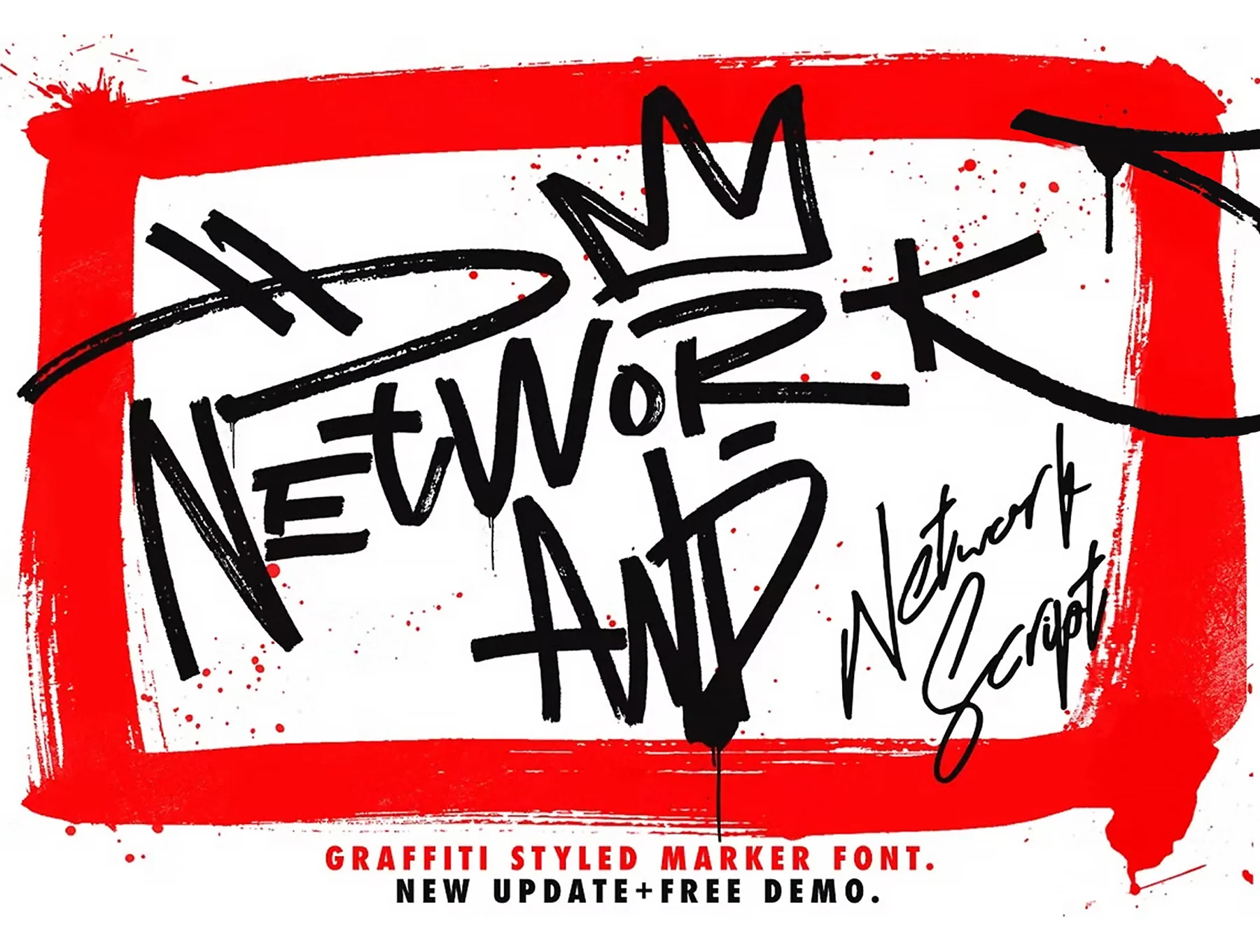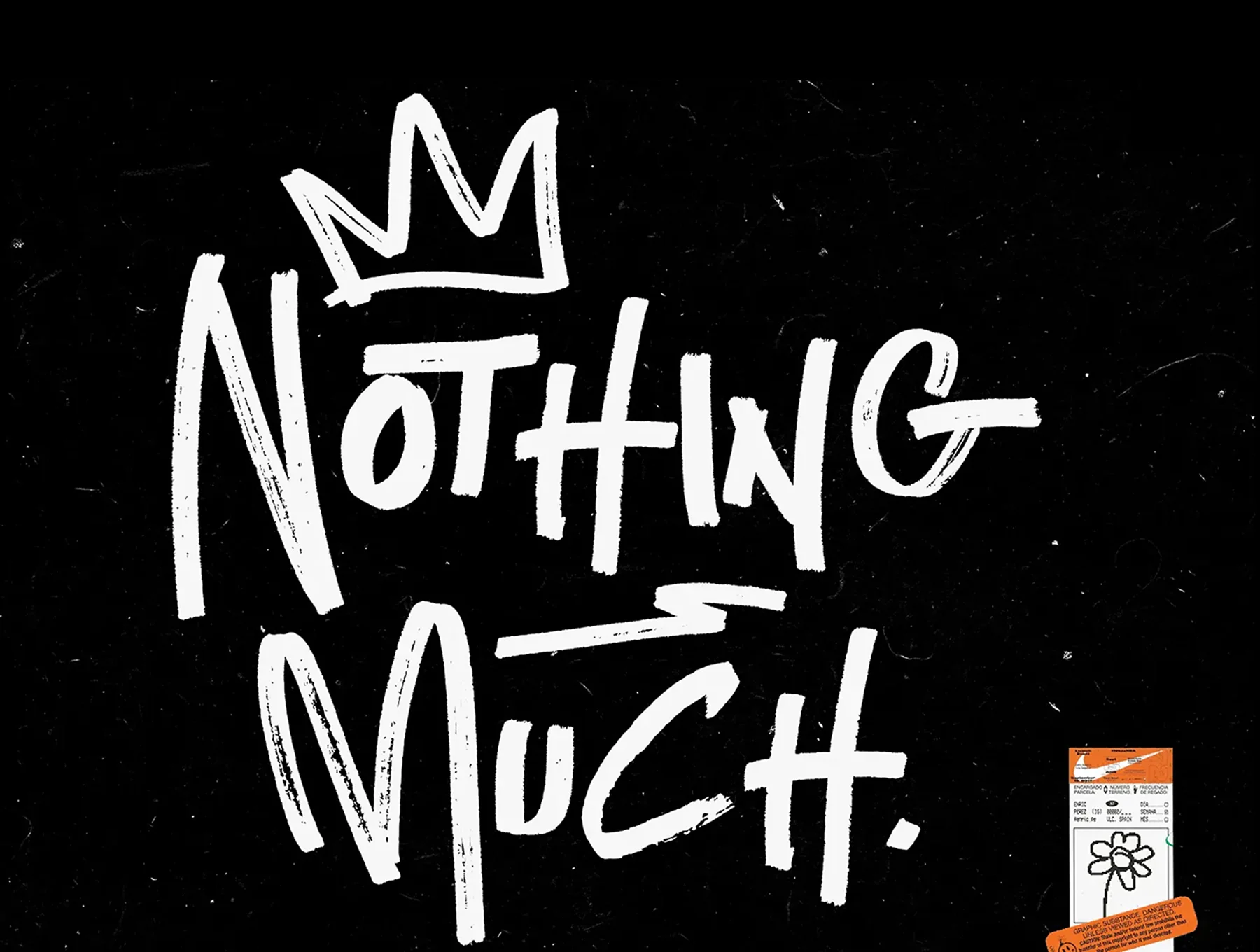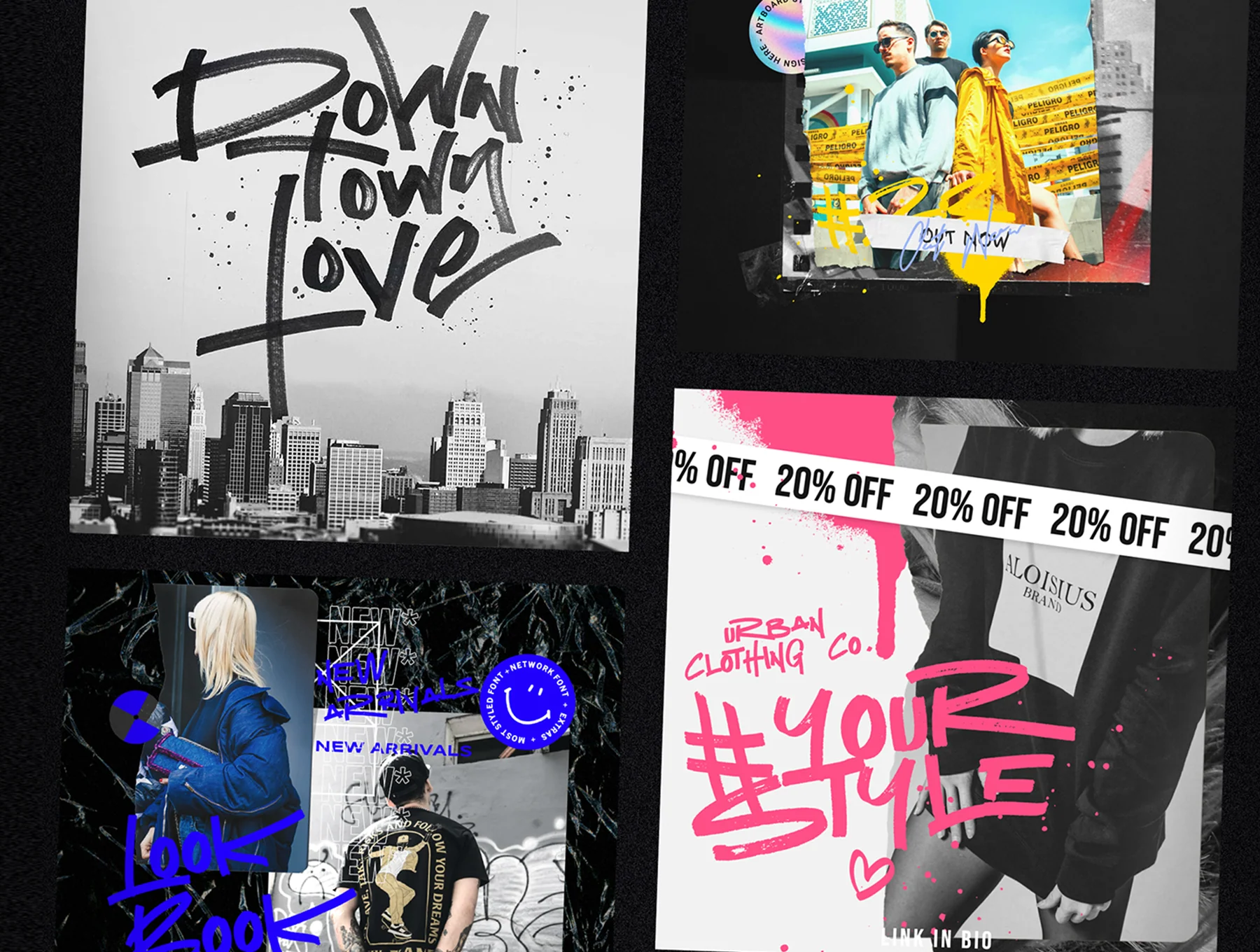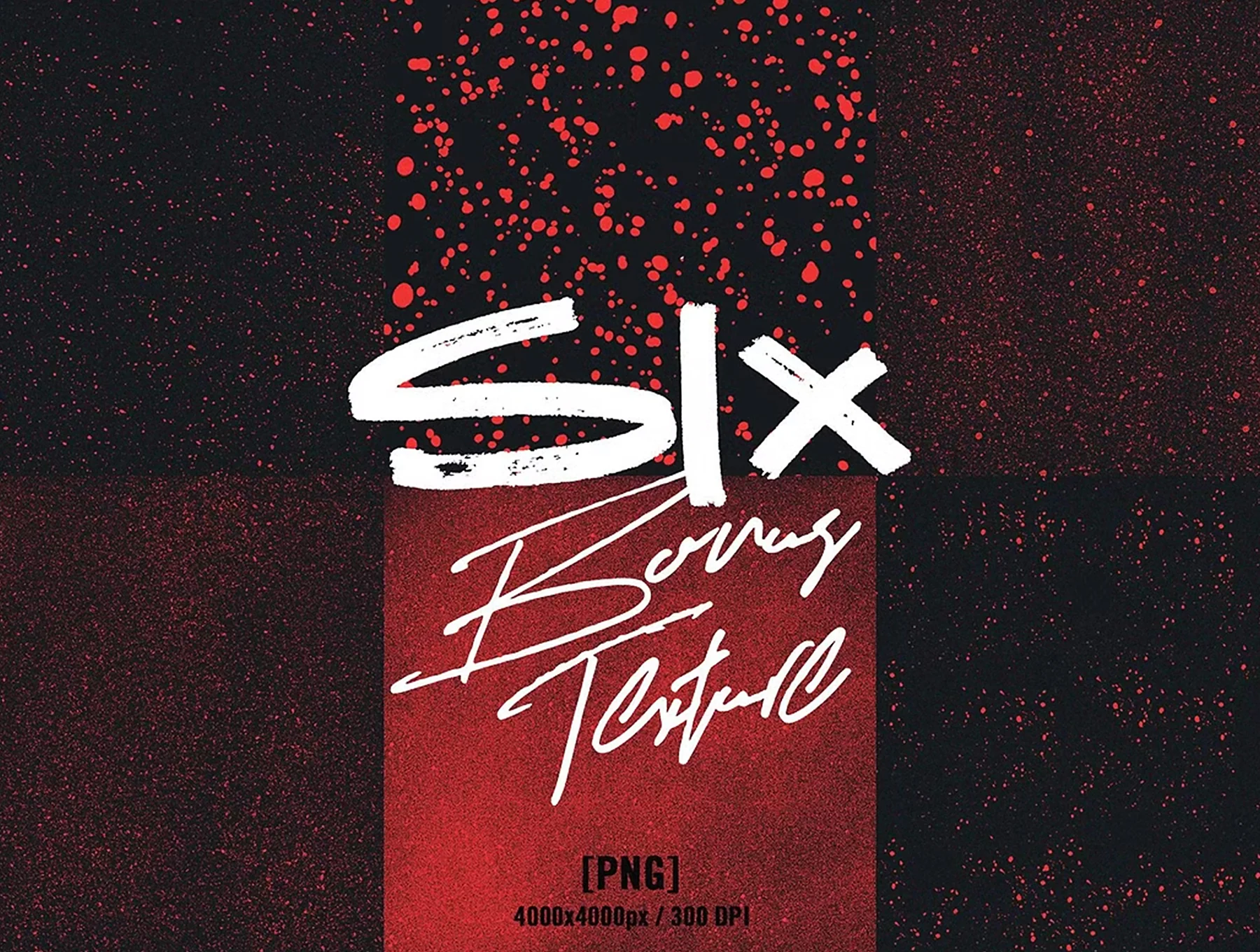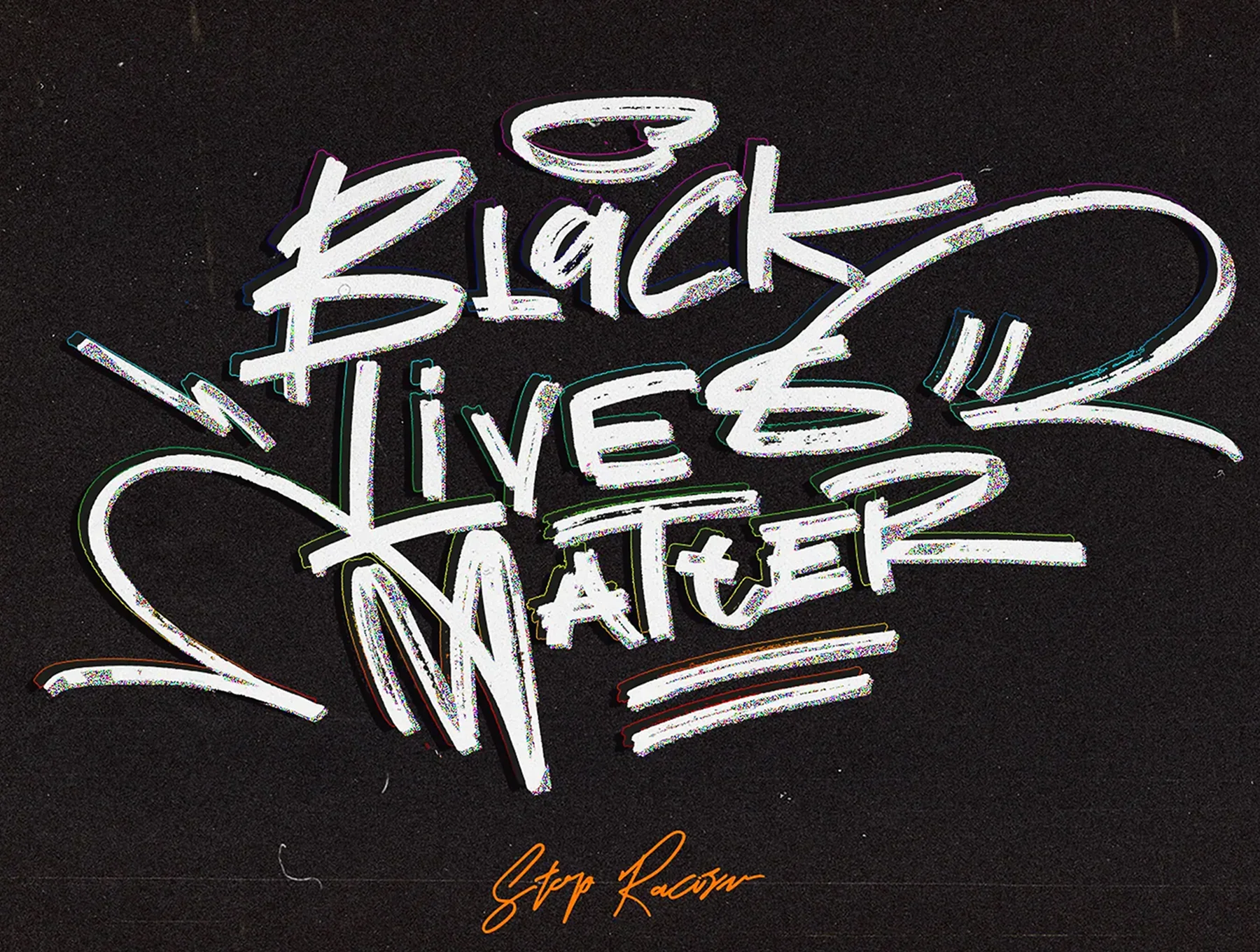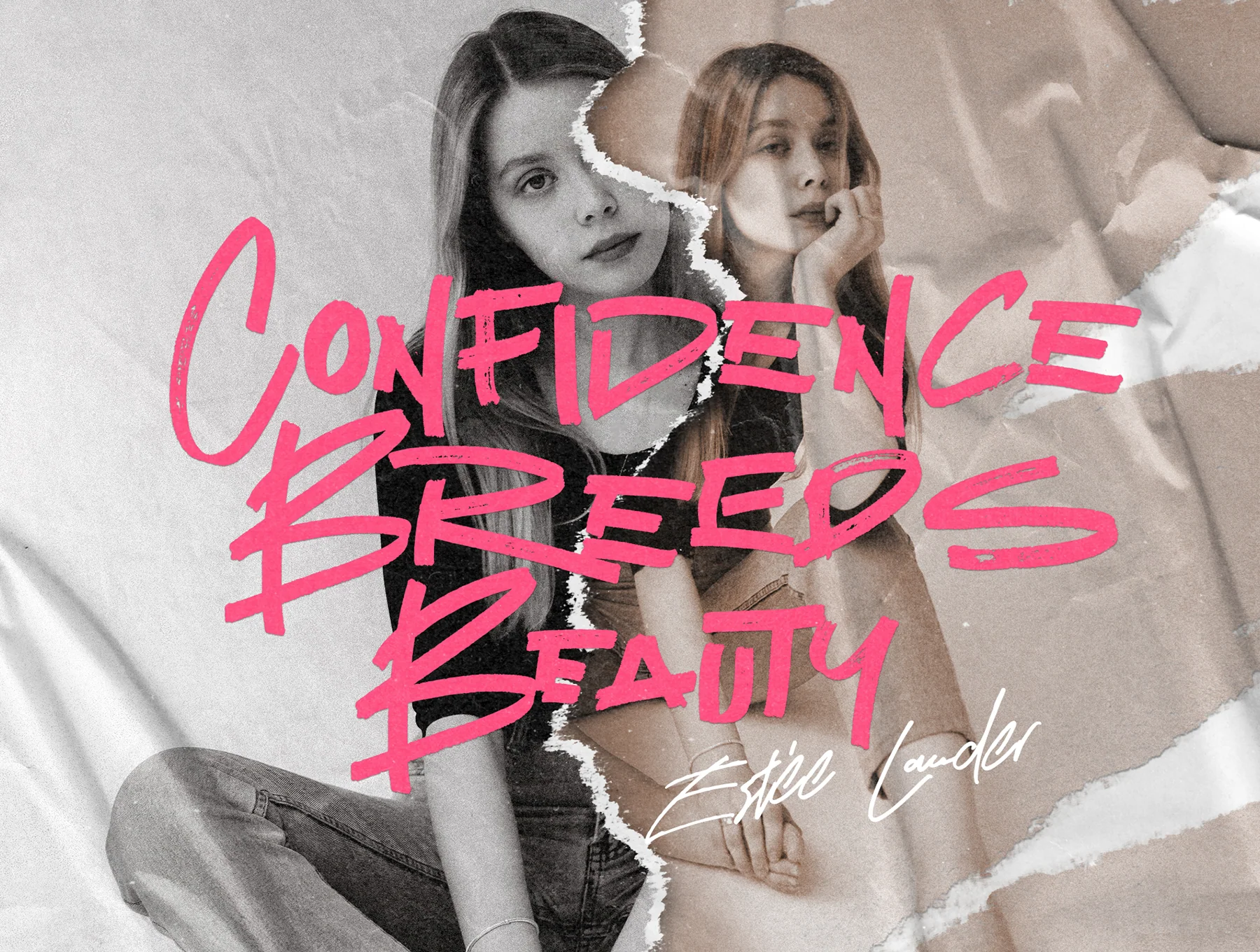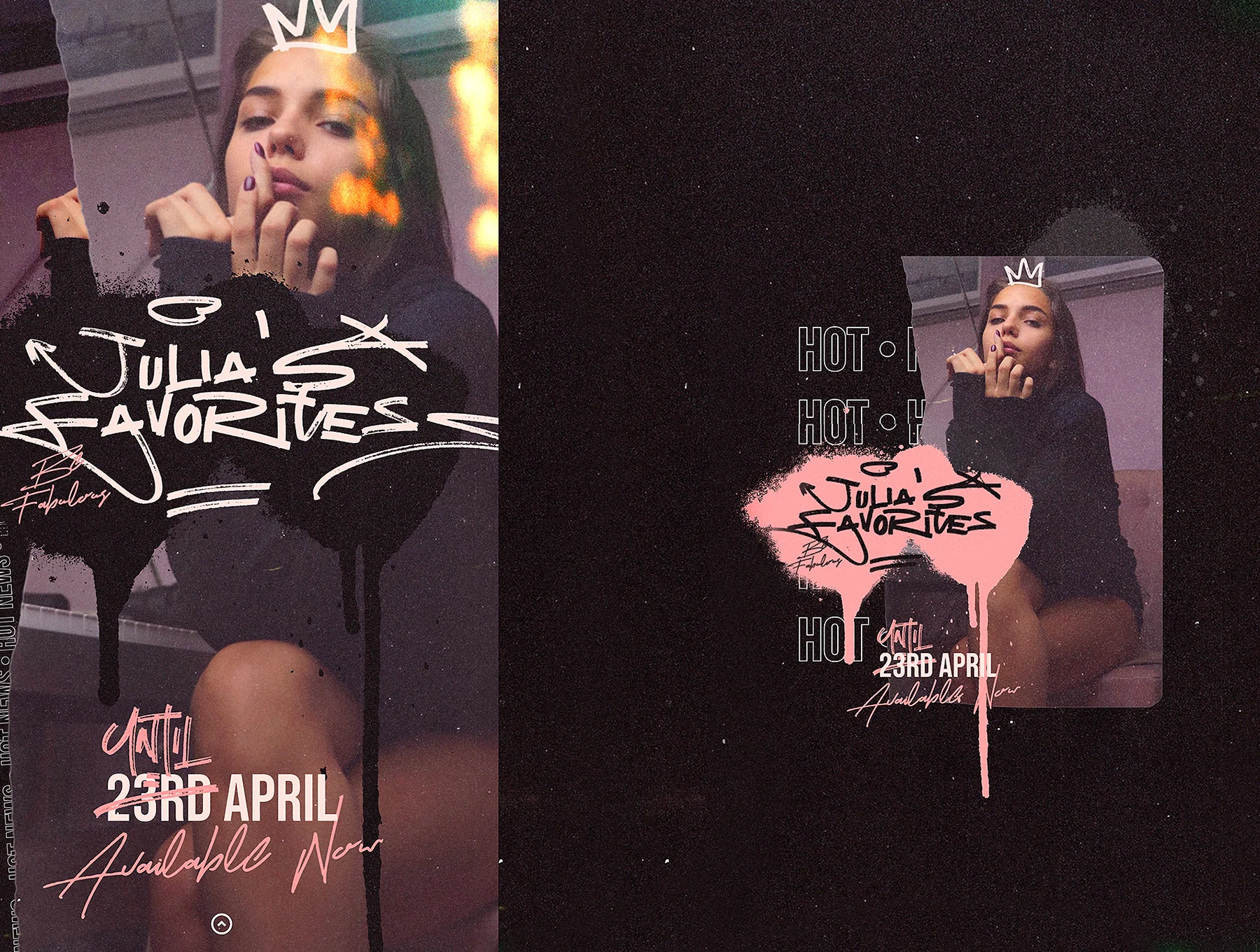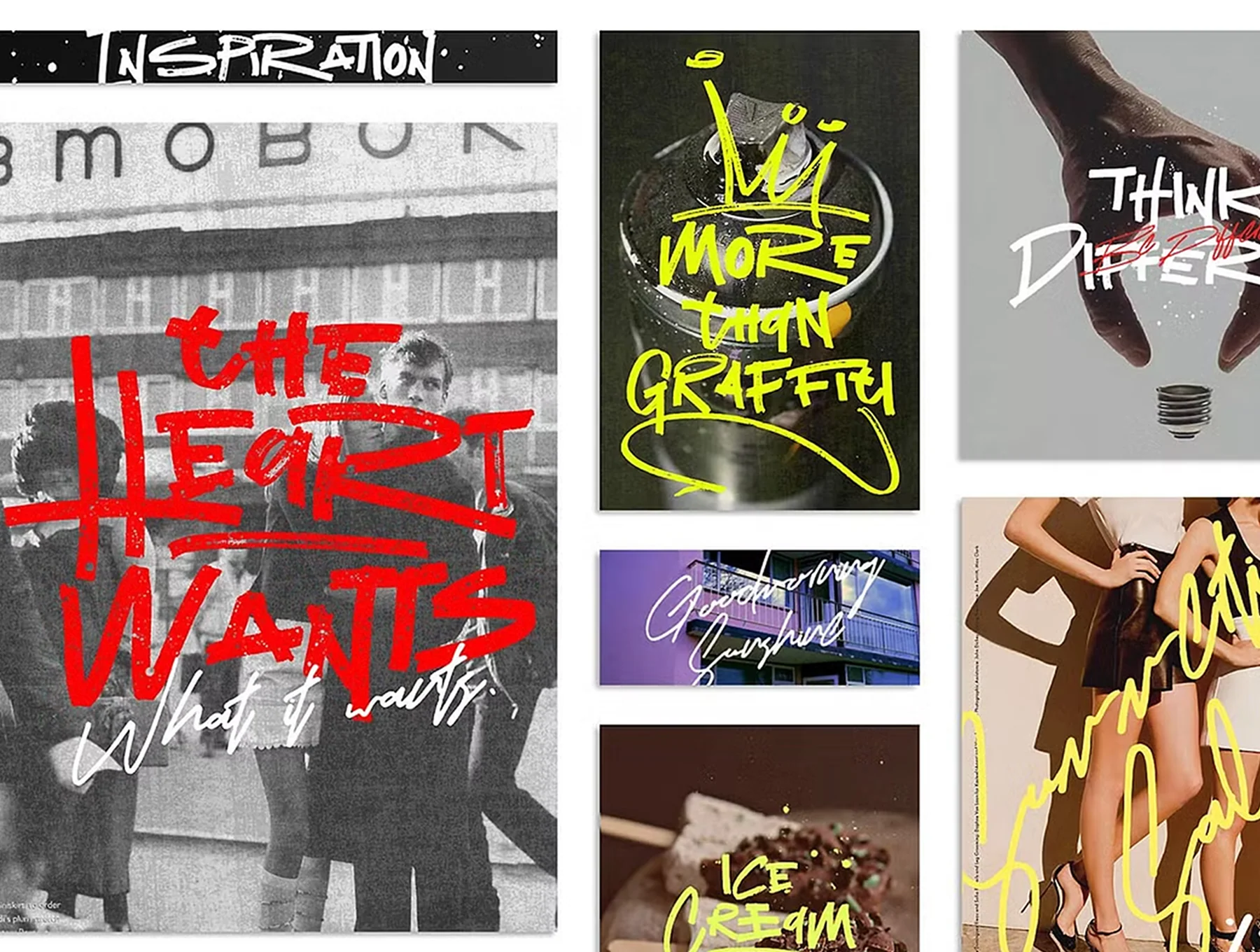
Network Font and Extras
Channel street energy with Network, a hyper-realistic essential
Worldwide Acclaimed Top Graffiti Typeface
Integrated Decorative Swash Elements
Extra Glyph Collection Included
Specialized Handwritten Signature Script
Network is an ultra-realistic marker graffiti font family that captures the grit and motion of a real permanent marker. Built for streetwear, album art, merch, extreme sports branding, logos, bold headers, apparel, and social posts, it includes main, Alt, B-Alt, Script, Swashes, and Calt files with alternates, strokes, textures, and broad Latin language support.